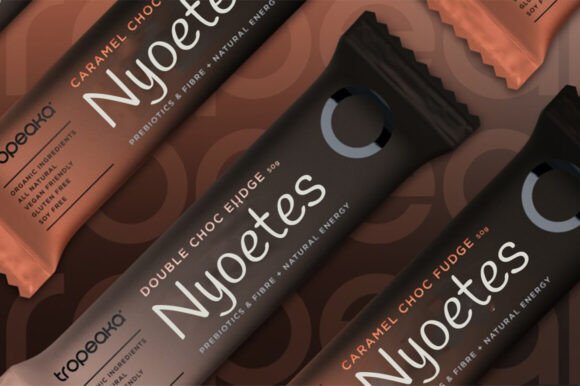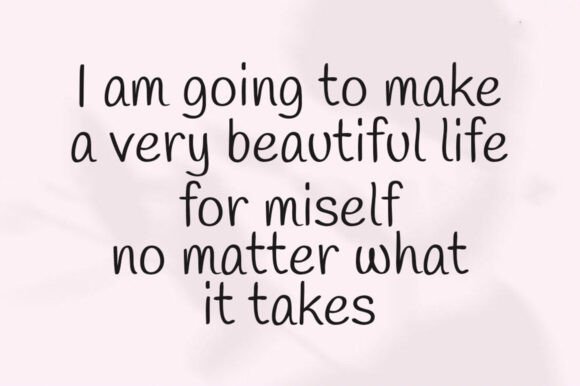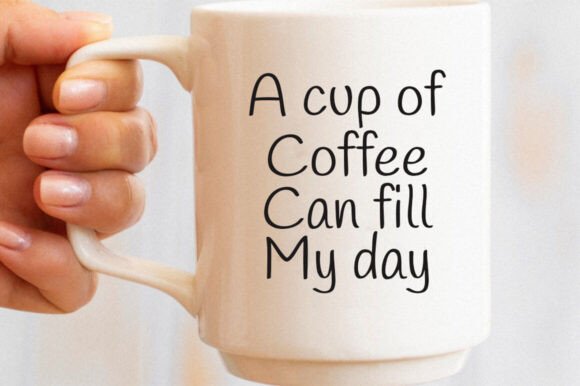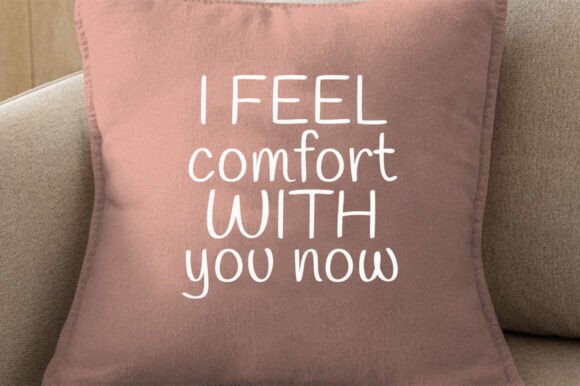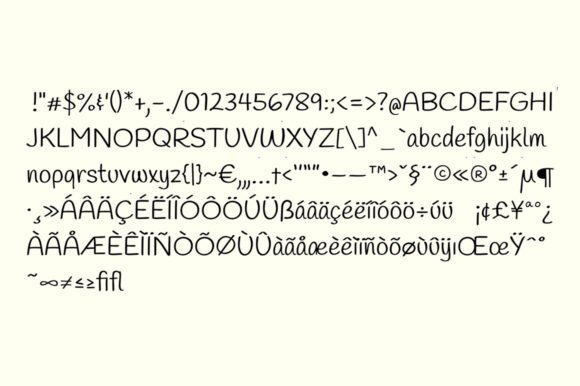
Introduction to Nyoetes Font
“Nyoetes” – A whimsical wanderer in the world of typography.
Its slightly condensed, hand-drawn letters dance with a charming irregularity, like a friendly conversation overheard in a sun-drenched café Perfect for adding a touch of playful personality to your designs, “Nyoetes” whispers stories of warmth and approachability, without taking itself too seriously.
Key Features of Nyoetes Font
Why Choose Nyoetes Font?
Nyoetes Font offers exceptional quality and versatility, making it a valuable addition to your design toolkit. Whether you’re creating for personal projects or commercial use, Nyoetes Font delivers professional results.